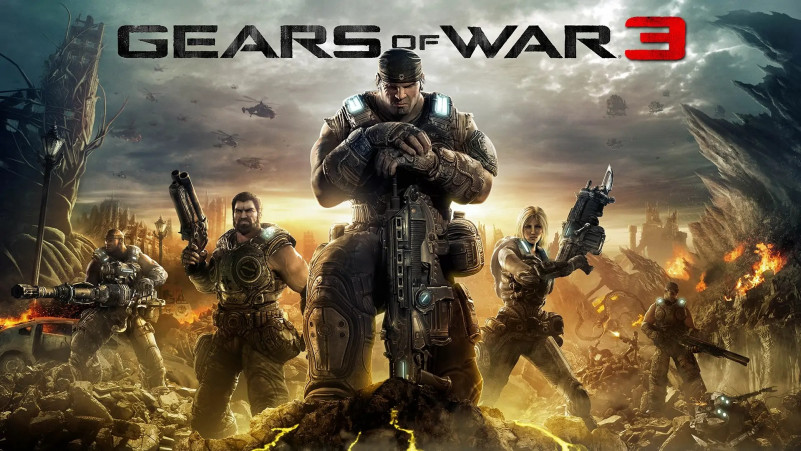
Gears of War (Game) Font
Gears of War is a 2006 third-person shooter video game, the first installment of the Gears of War series. It was developed by Epic Games and published by Microsoft Game Studios, initially as an exclusive title for the Xbox 360 in November 2006, before a Microsoft Windows version of the game, developed in conjunction with People Can Fly, was released in 2007. The game’s main story, which can be played in single or co-operative play, focuses on a squad of troops who assist in completing a desperate, last-ditch attempt to end a war against a genocidal subterranean enemy, and save the remaining human inhabitants of their planet Sera. The game’s multiplayer mode allows up to eight players to control characters from one of the two factions in a variety of online game modes. Gameplay features players using cover and strategic fire in order to win battles.
What Font Was Used in Poster?
The text “Gears of War” on the poster we identify is created by CGF Locust Resistance  Font. There are 2 fonts included, CGF Locust Resistance(Caps are clean, Uncaps are a little dirty) and CGF Locust Resistance